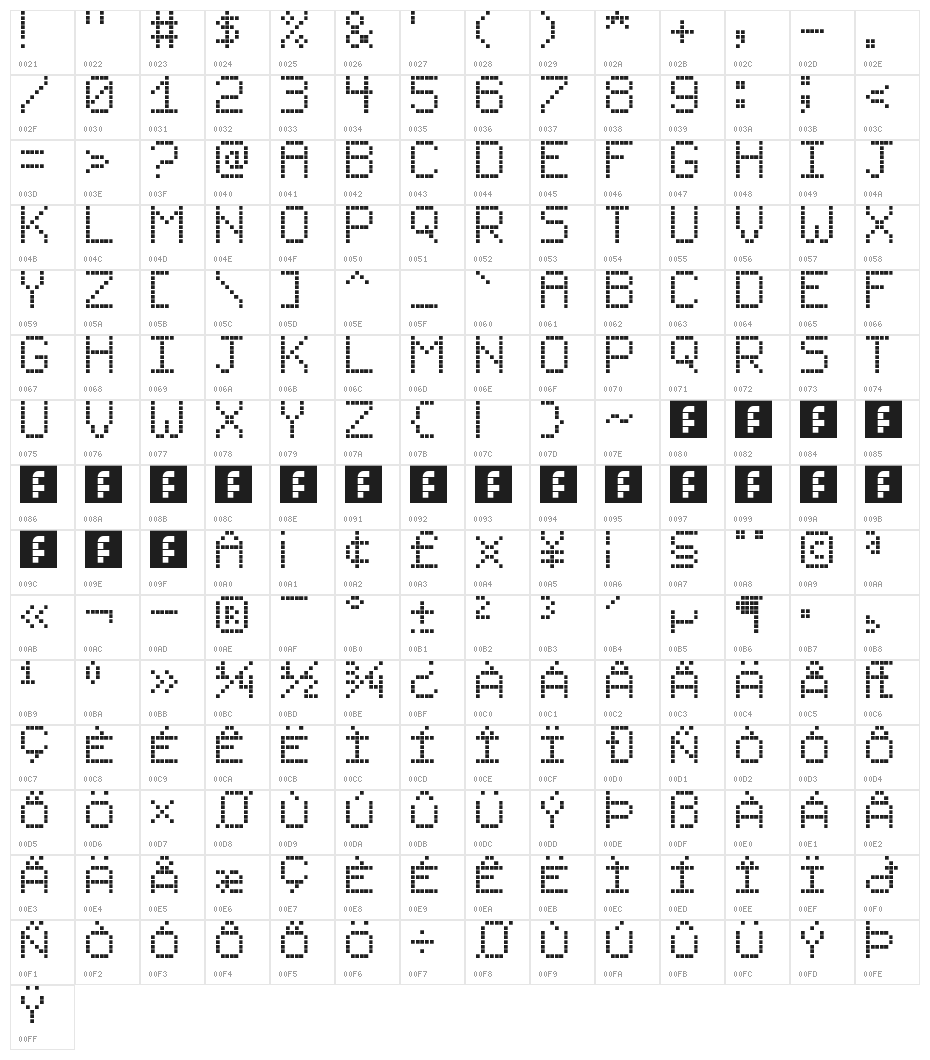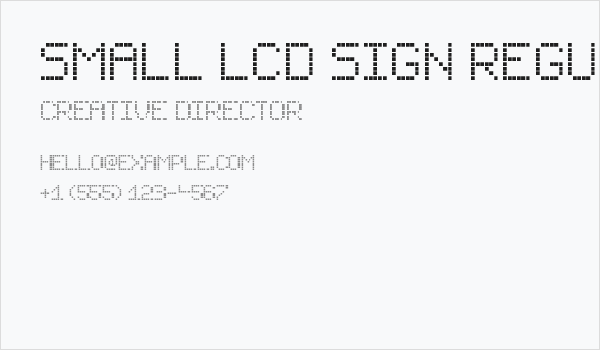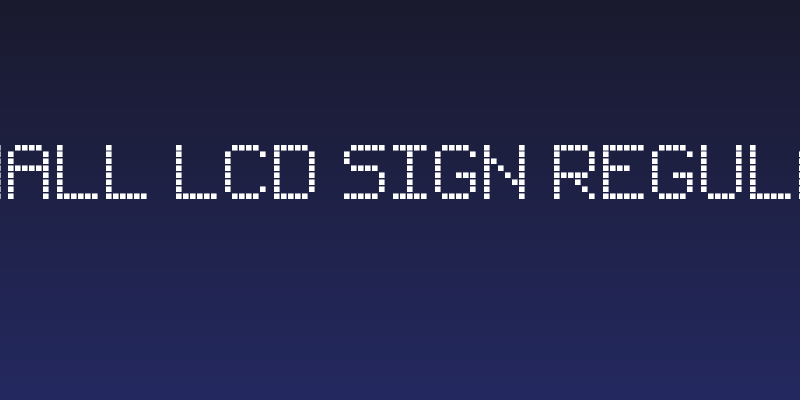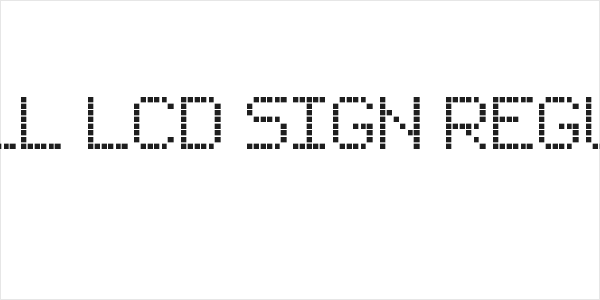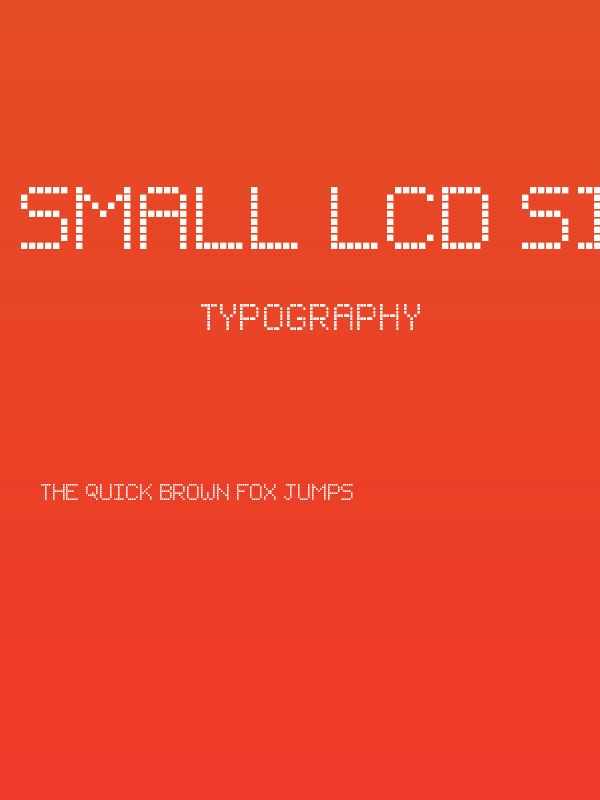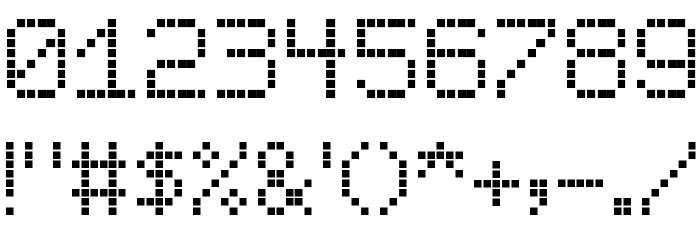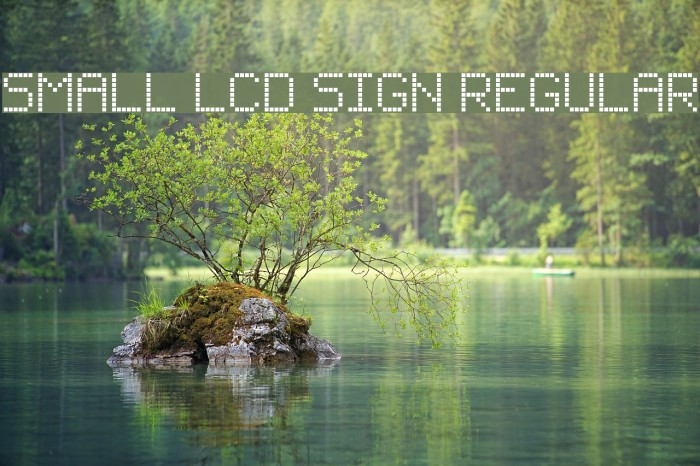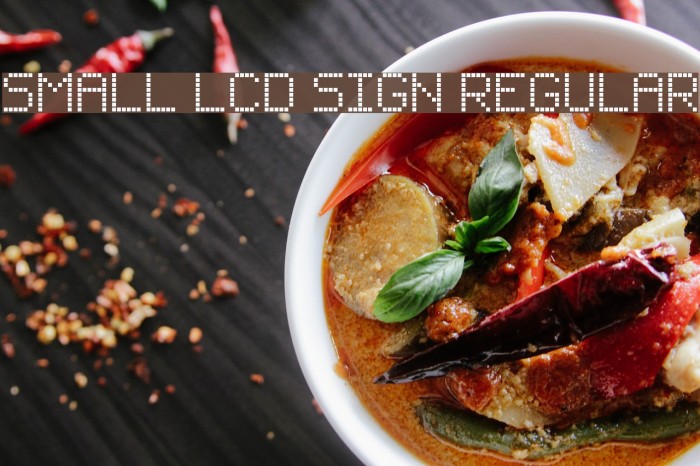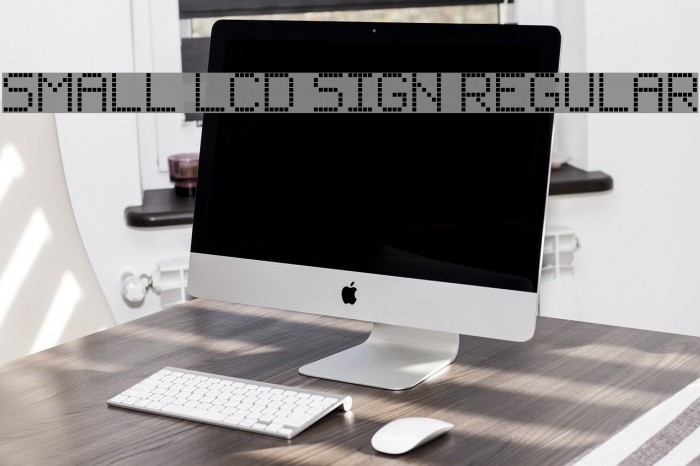
Small LCD Sign Regular Font
Small LCD Sign Regular Description
This font features a distinctive dot matrix style, reminiscent of old LCD displays. Each character is composed of a grid of small, evenly spaced dots, creating a digital and retro aesthetic. The uniformity of the dots gives the font a clean and structured appearance, while the open spaces between the dots add a sense of lightness and modernity. The characters are easily legible, making it suitable for digital displays or any project that requires a tech-inspired look. The font maintains a consistent weight throughout, ensuring readability across different sizes.
| Proposed Projects | Ideal for digital displays, tech-themed designs, retro gaming interfaces, and electronic device branding. |